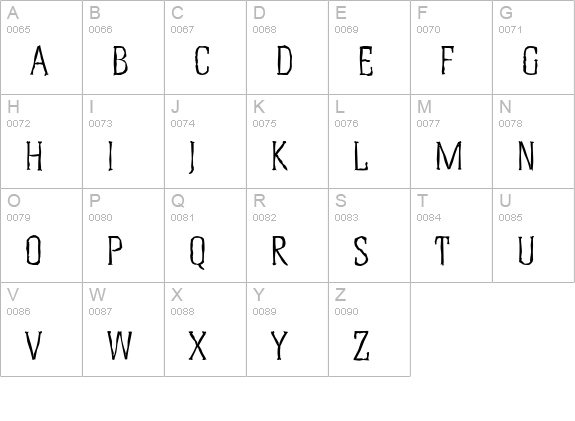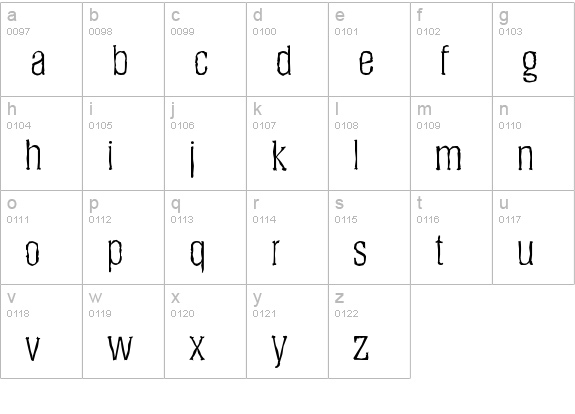
HeliumAntique-Light-Regular is a refined, elegant variant in the HeliumAntique typeface family \xE2\x80\x94 well suited to elegant body text, refined sub-headings, and luxury branding.
HeliumAntique-Light-Regular is a charming and elegant font that exudes a sense of sophistication and timeless beauty. Its delicate strokes and classic design make it perfect for a wide range of projects, from invitations to branding and beyond. This font effortlessly combines vintage charm with a modern twist, making it versatile and suitable for various design purposes. What sets HeliumAntique-Light-Regular apart is not only its exquisite design but also the fact that it is available for free download at FontsMarket.com. This means that you can add a touch of elegance to your projects without any additional cost. Whether you are a designer looking for a stylish font or someone in need of a beautiful typeface for personal use, HeliumAntique-Light-Regular is the perfect choice. Download it today and elevate your designs with this stunning and free font.